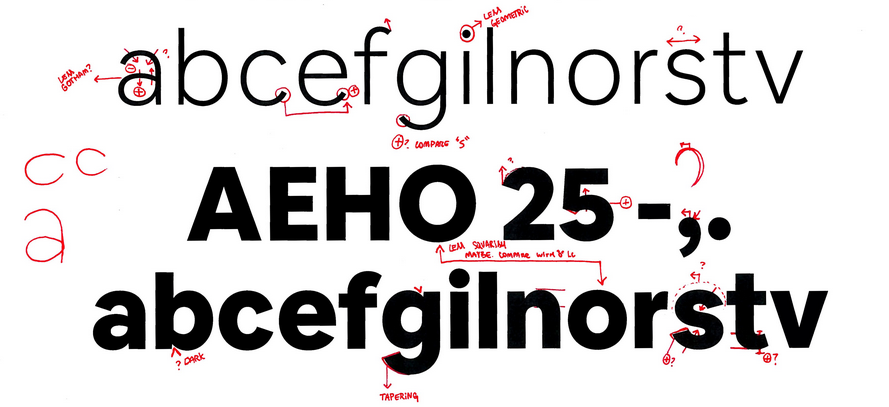
Airbnb, Netflix both launched a custom font 📝
Airbnb launched their own font earlier this week: Airbnb Cereal, in homage of the Obama and McCain themed cereal boxes that co-founders Brian Chesky and Joe Gebbia sold in order to bootstrap Airbnb.
Airbnb isn't alone: Netflix launched Netflix Sans earlier this year, and both Apple and Samsung use custom default fonts.